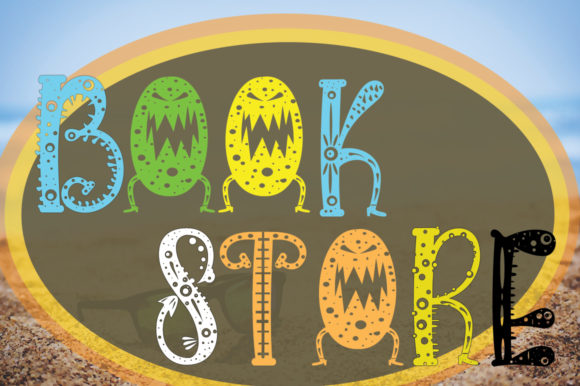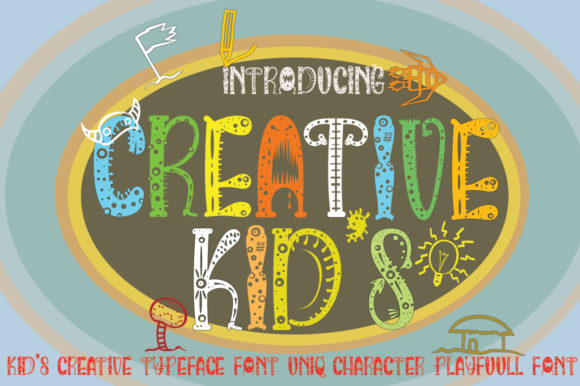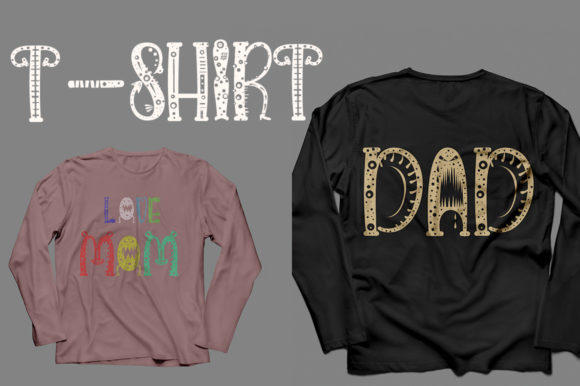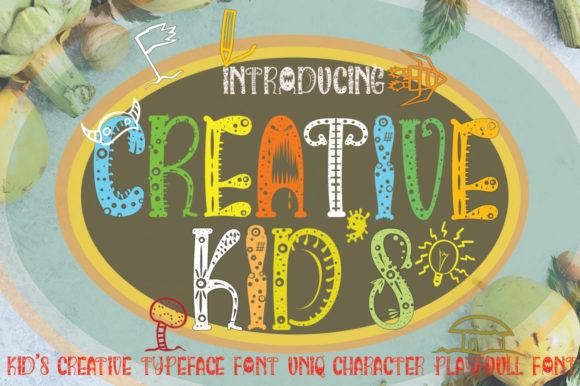
Introducing Creative Kids Font: The Ultimate Playful Display Font for Fun-Loving Designers
Are you a designer or crafter looking for a font that can add a touch of playfulness and whimsy to your projects? Look no further than Creative Kids Font! This fun kid-friendly display font is designed to bring a smile to your face and a spark to your designs. With its tons of character and playful look & feel, Creative Kids Font is sure to fall in love with its charm.
What Makes Creative Kids Font So Special?
Creative Kids Font is more than just a font – it’s an experience. Its unique and quirky design makes it perfect for a wide range of projects, from kids’ party invitations and educational materials to branding and advertising campaigns. The font’s playful and energetic vibe is sure to capture the attention of your audience and leave a lasting impression.
Key Features of Creative Kids Font
- Tons of Character: Creative Kids Font comes with a vast array of characters, including uppercase and lowercase letters, numbers, and punctuation marks. This means you can create a wide range of designs and phrases with ease.
- Playful Look & Feel: The font’s playful design makes it perfect for projects that require a fun and lighthearted touch. Its unique and quirky style is sure to add a smile to your face and a spark to your designs.
- Kid-Friendly: As its name suggests, Creative Kids Font is designed with kids in mind. Its fun and playful design makes it perfect for projects aimed at children, such as kids’ party invitations, educational materials, and more.
- Display Font: Creative Kids Font is a display font, making it perfect for headlines, titles, and other display text. Its bold and eye-catching design is sure to capture the attention of your audience.
Uses for Creative Kids Font
Creative Kids Font is a versatile font that can be used for a wide range of projects, including:
- Kids’ party invitations and decorations
- Educational materials, such as worksheets and activity sheets
- Branding and advertising campaigns aimed at children
- Signs and displays for kids’ events and attractions
- Digital graphics and animations for kids’ content
Why Choose Creative Kids Font?
With so many fonts available, why choose Creative Kids Font? Here are just a few reasons:
- Unique and Quirky Design: Creative Kids Font has a unique and quirky design that sets it apart from other fonts. Its playful look & feel is sure to add a touch of whimsy to your designs.
- Kid-Friendly: As a font designed with kids in mind, Creative Kids Font is perfect for projects aimed at children.
- Easily Readable: Despite its playful design, Creative Kids Font is easily readable, making it perfect for display text and headlines.
Tips for Using Creative Kids Font
Here are a few tips for using Creative Kids Font:
- Use it for Headlines and Titles: Creative Kids Font is perfect for headlines and titles, where its bold and eye-catching design can really shine.
- Experiment with Colors and Textures: Don’t be afraid to experiment with different colors and textures to really make your designs pop.
- Pair it with Other Fonts: Creative Kids Font can be paired with other fonts to create a unique and interesting design.
In conclusion, Creative Kids Font is a fun and playful display font that’s perfect for designers and crafters looking to add a touch of whimsy to their projects. With its tons of character, playful look & feel, and kid-friendly design, Creative Kids Font is sure to fall in love with its charm. Whether you’re creating kids’ party invitations, educational materials, or branding and advertising campaigns, Creative Kids Font is the perfect choice.